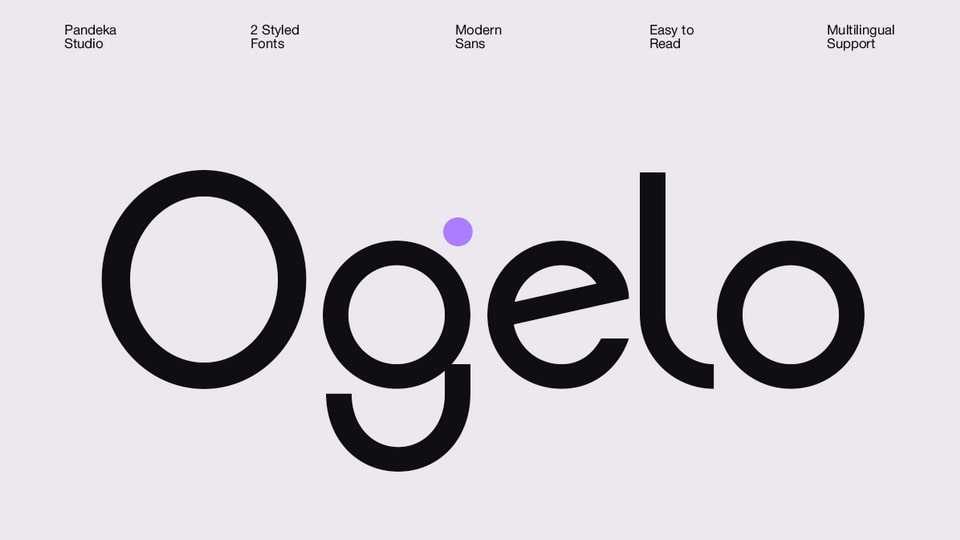
Download Ogelo font, a soft and friendly rounded sans-serif typeface that blends geometric shapes with a refined, modern character. Perfect for lifestyle brands, galleries, editorial design, or UI projects.